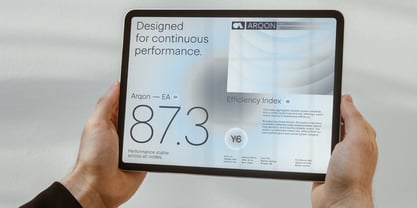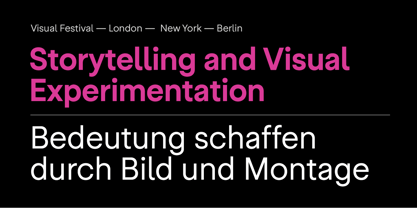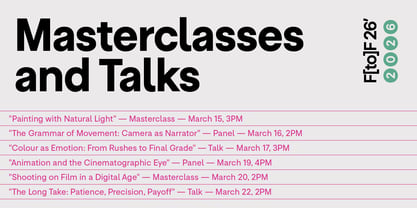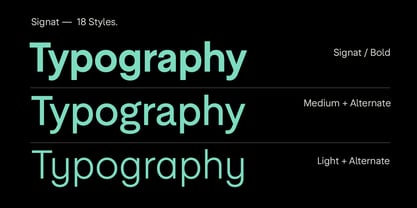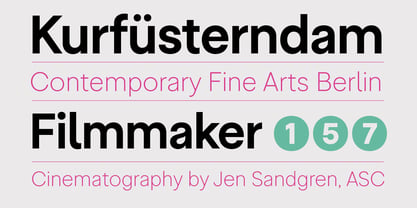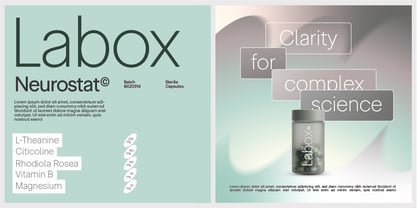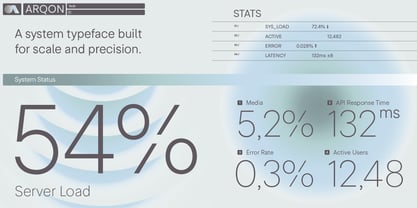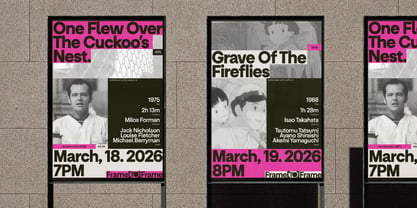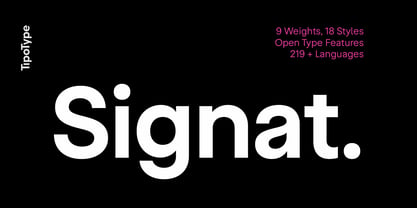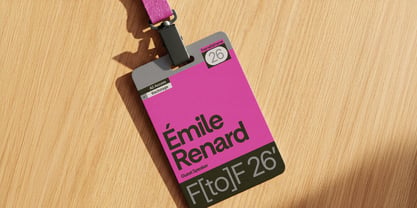
Signat
The Signat Font Family was designed by Tipotype Team and published by TipoType. Signat contains 18 styles and family package options. More about this family
Signat emerges from a rigorous—yet never rigid—structural logic. Its construction is guided by precise optical criteria, where every curve, junction, and proportion is carefully calibrated to achieve seamless visual continuity. It is not a grotesque that seeks impact through eccentricity, but through consistency: a refined grotesque with a sense of distinction and elegance.
It retains the clarity and legibility inherent to the genre while introducing a strategic neutrality that allows it to adapt without losing its identity. It conveys authority without harshness and presence without excess, drawing attention through balance rather than exaggerated contrast.
Thanks to this optical and structural foundation, Signat performs naturally across institutional identities, technology and service environments, fashion and high-end editorial contexts, as well as brand systems that require continuity and control. At large scales, its personality becomes more expressive; in text, it maintains composure and clarity.